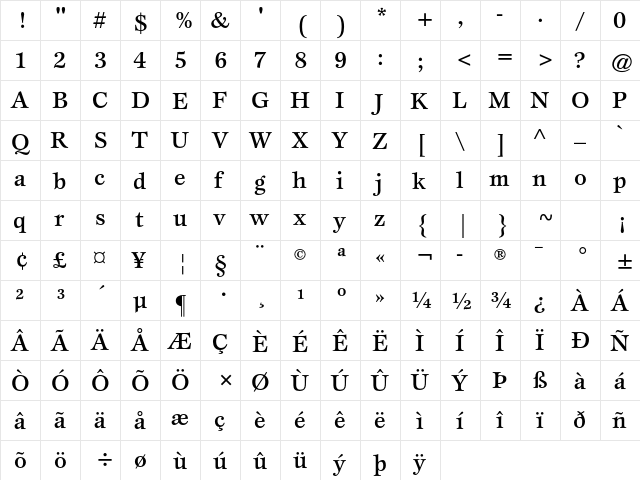
ITC Esprit Std Medium
| Designer | Jovica Veljovic |
Design Context for ITC Esprit Std Typeface
ITC Esprit Std takes a measured approach to typography — its balanced proportions and neutral character make it a reliable workhorse for both digital and print work.